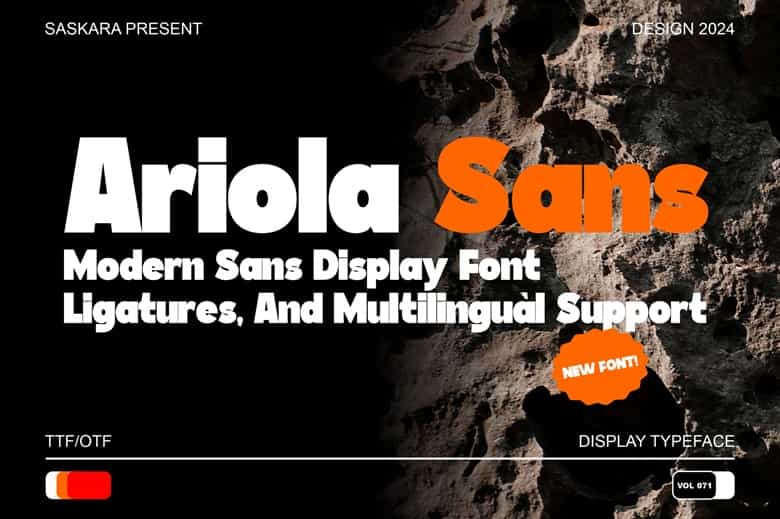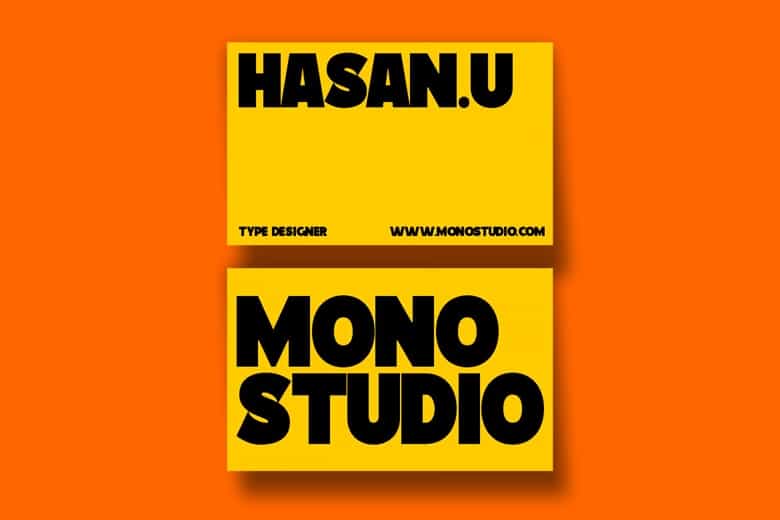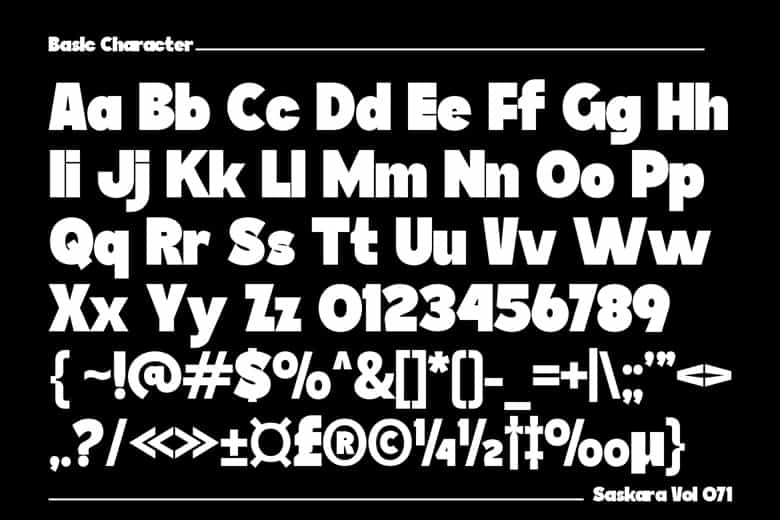
Ariola Sans is a new bold modern styled sans serif font with extended style display font that is made strong and dynamic, ideal for logos, labels, flyers, brochures, signage, craft brands, and anything to do with the modern style.